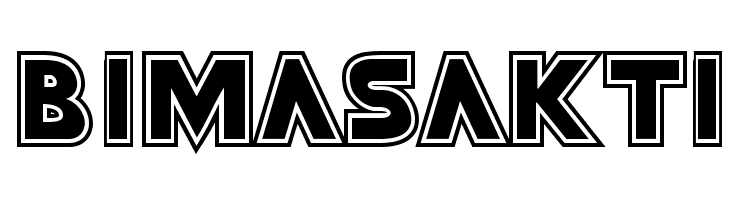
A modern, decorative font with elegant uppercase and script-like lowercase letters.
A futuristic, geometric font with bold, rounded edges and a modern aesthetic.
A bold, handwritten font with dynamic strokes and a modern, artistic flair.
A dynamic, expressive handwritten font with fluid strokes and a lively aesthetic.
A bold, hand-drawn font with an energetic and expressive style.
A flowing, cursive script with elegant loops and swirls.
A decorative font with characters enclosed in intricate triangular designs.
A bold, textured brush script font with an energetic, hand-painted look.
A modern, elegant script font with a flowing, handwritten style.
A graceful, flowing script font with a handwritten style.
A bold, italicized font with a geometric, industrial style.
A bold, textured script font with a brush-like, expressive style.
A modern, outlined font with bold, angular characters and a geometric design.
A playful handwritten font with smooth curves and rounded edges.
A lively and elegant handwritten font with fluid strokes and dynamic movement.
A bold, geometric font with sharp angles and a vintage flair.
A bold, cityscape-themed font with high contrast and dramatic style.
A bold, italic font with a strong, dynamic presence.
A decorative script font with elegant, flowing characters and bold weight.
A playful, rounded font with a whimsical and dynamic style.
A clean, semi-condensed, extra light serif font with balanced spacing.
An ornate blackletter font with bold, decorative elements and a gothic style.
A playful and energetic script font with fluid, connected letterforms.
A modern, handwritten font with elegant, fluid strokes and dynamic contrast.
A bold, modern decorative font with high contrast and geometric shapes.
A modern, fluid font with thin lines and elegant curves, perfect for contemporary designs.
A bold, brush-style font with dynamic strokes and energetic flow.
A bold, rounded font with a modern and playful style.
A playful, rounded font with screw-like accents and bold strokes.
A bold, decorative font with pumpkin-themed embellishments for a festive look.
A playful, handwritten-style font with bold, rounded characters.
A dynamic, brush-style font with bold, expressive strokes.
A bold, angular font with a dynamic slant and geometric forms.
A bold, 3D geometric font with outlined characters and a strong visual impact.
A playful, handwritten-style font with consistent stroke thickness and rounded edges.